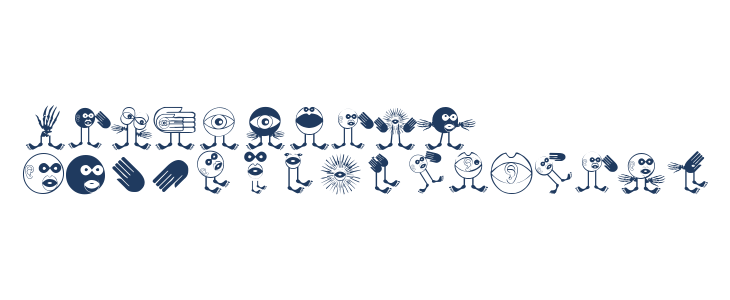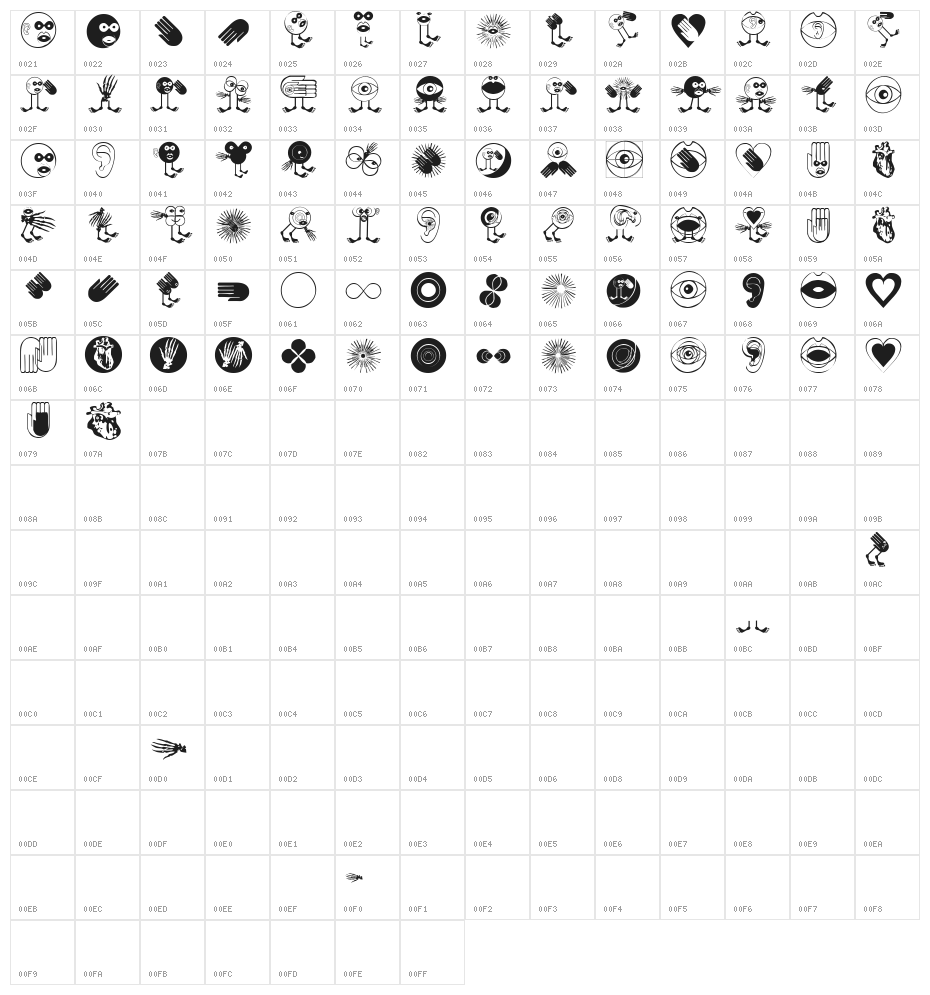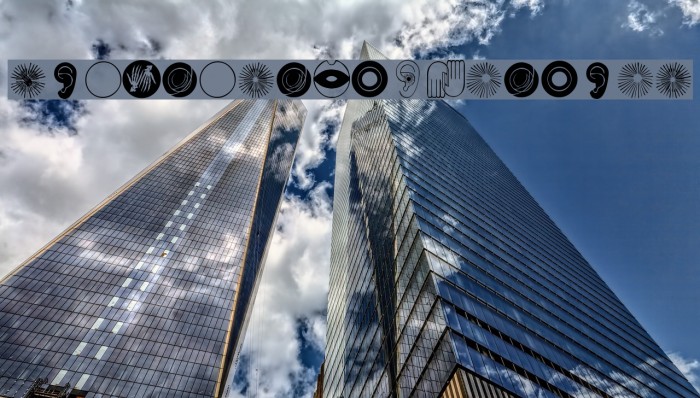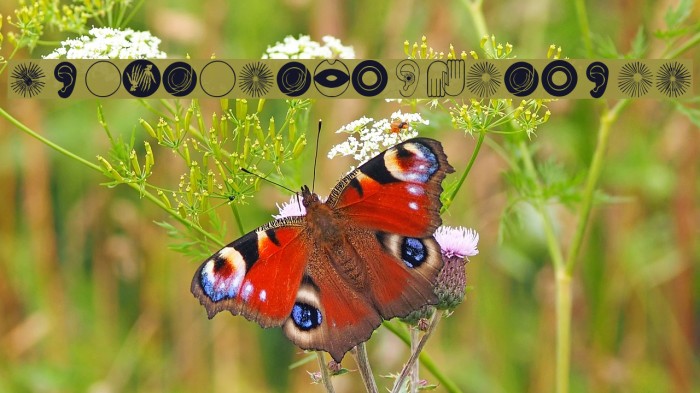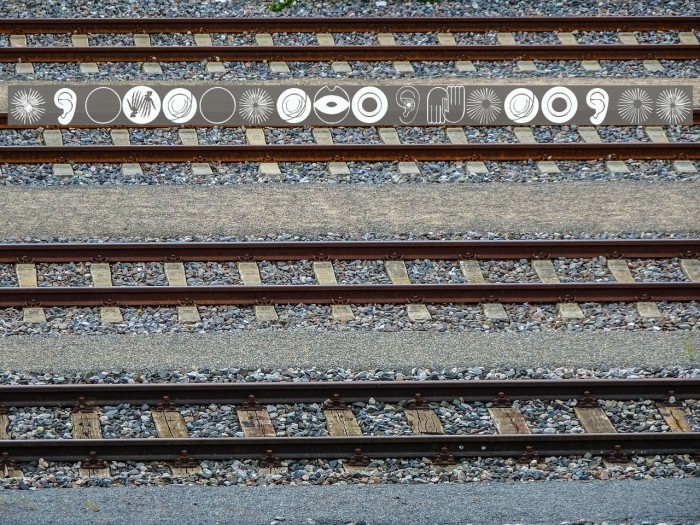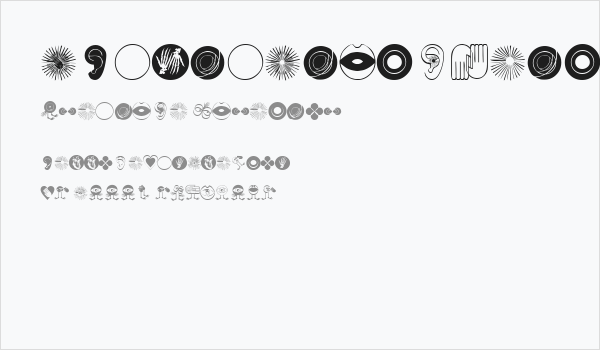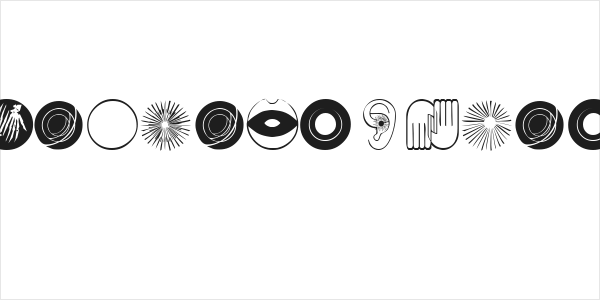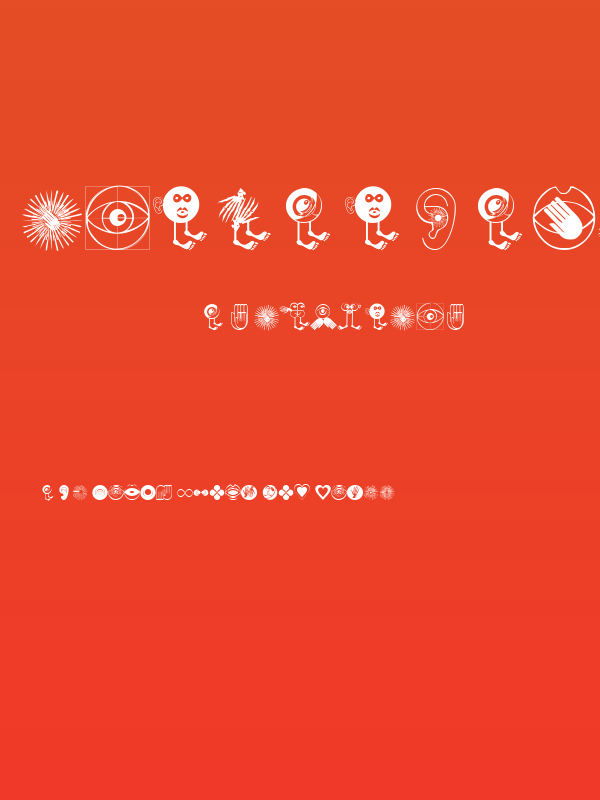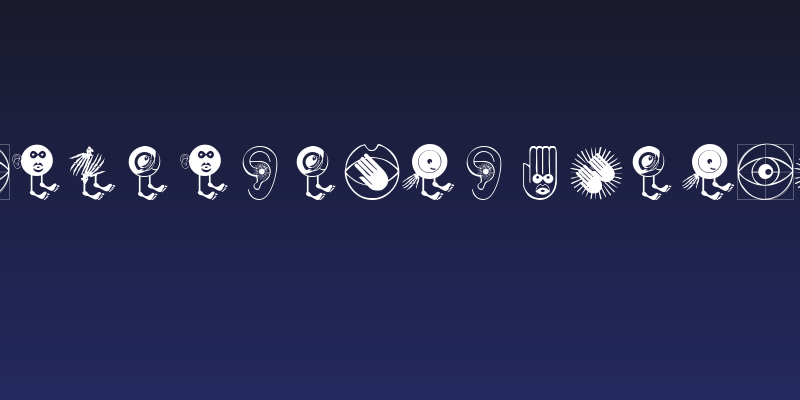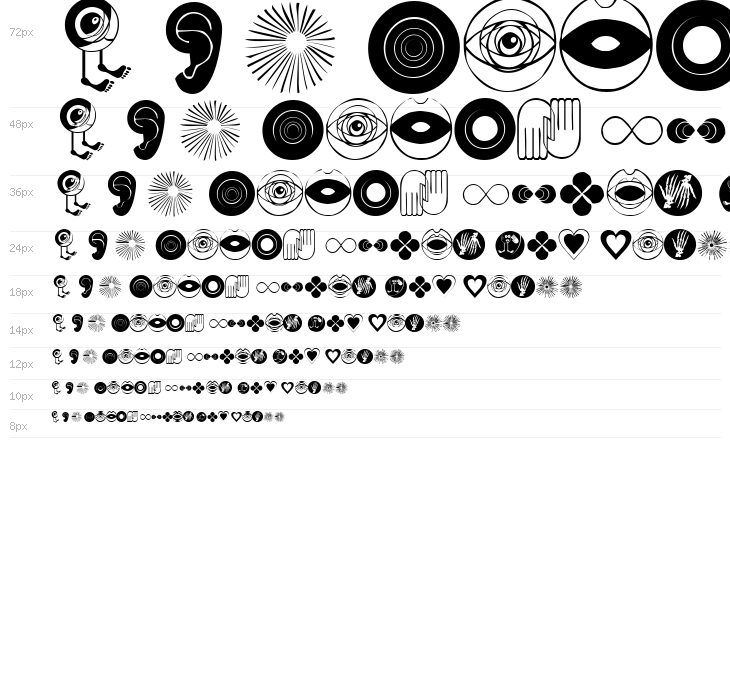
PhantasticSketches Font
PhantasticSketches Description
A highly decorative and whimsical display font composed of playful, surreal illustrations combining human features, geometric shapes, and abstract forms for each character. The glyphs are imaginative and visually complex, featuring elements like eyes, hands, hearts, ears, and various anthropomorphic figures, making each letter and symbol unique and expressive.
Overall StyleDecorative, Surreal, Playful, Artistic
Use CaseLogos, Headlines, Posters, Artistic projects
Proposed ProjectsChildrenÒ€ℒs books, poster art, album covers, branding for creative industries, editorial illustrations, event invitations, and experimental graphic design.